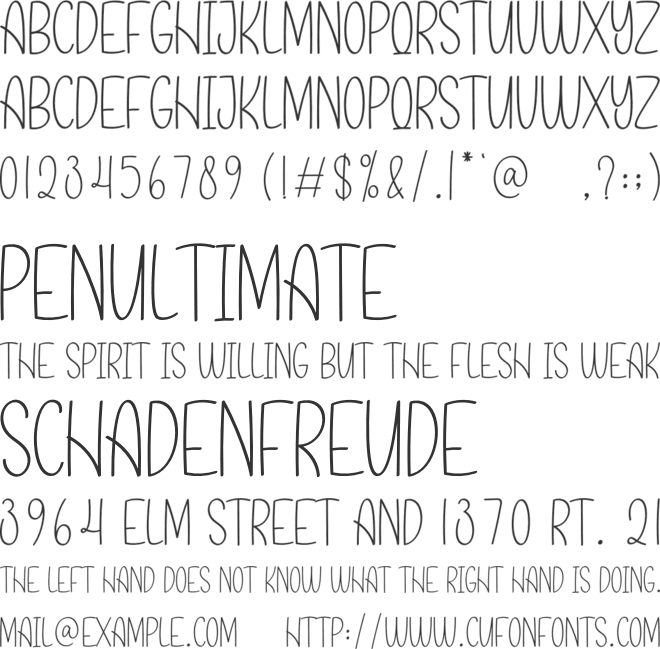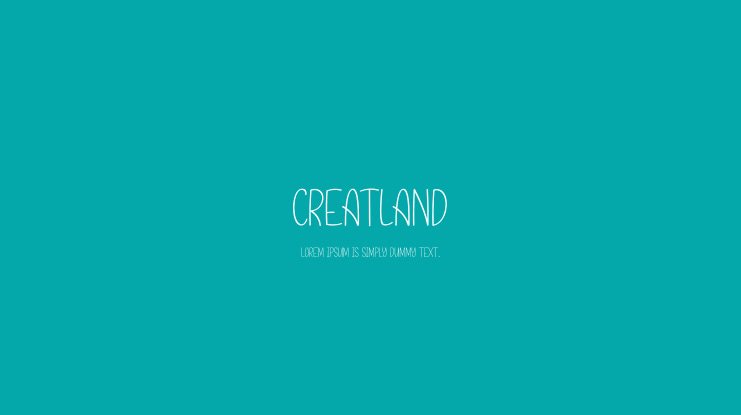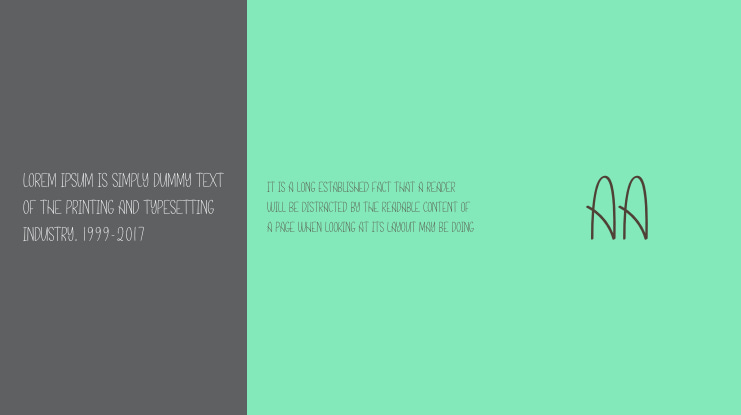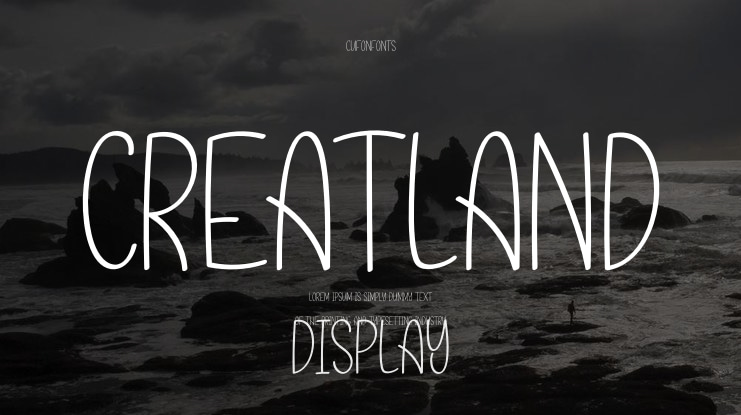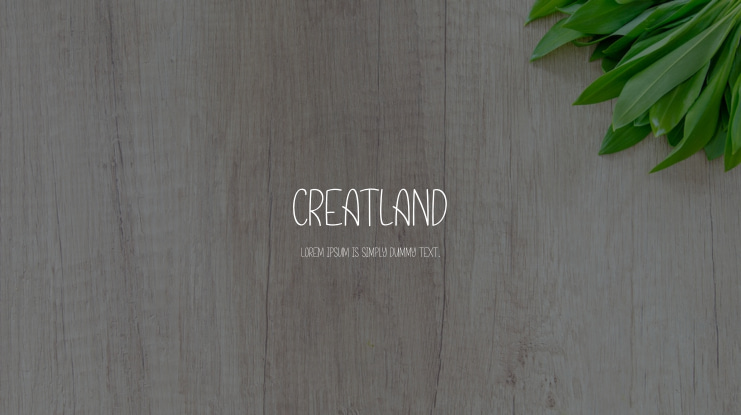
Creatland Font
Discover our special creative products designed just for you, ensuring an extraordinary experience. Our latest style fonts are perfect for wall displays, wedding invitations, social media logos, advertisements, product packaging, design labels, photography watermarks, invitations, stationery, and any project that calls for tasteful handwriting.